We know the taste of delicious coffee well and we love it very much, so for designs that need an exclusive coffee aroma we created this coffee fonts collection to enrich your projects.
Don’t be afraid of these coffee fonts that can really have a positive effect on your design style, just try to use it in it and you will see really good results. These fonts have various styles, so the designs will not be monotonous and will spread a really good aura for your business. Keep a good mood and enjoy.
Early Coffee Font
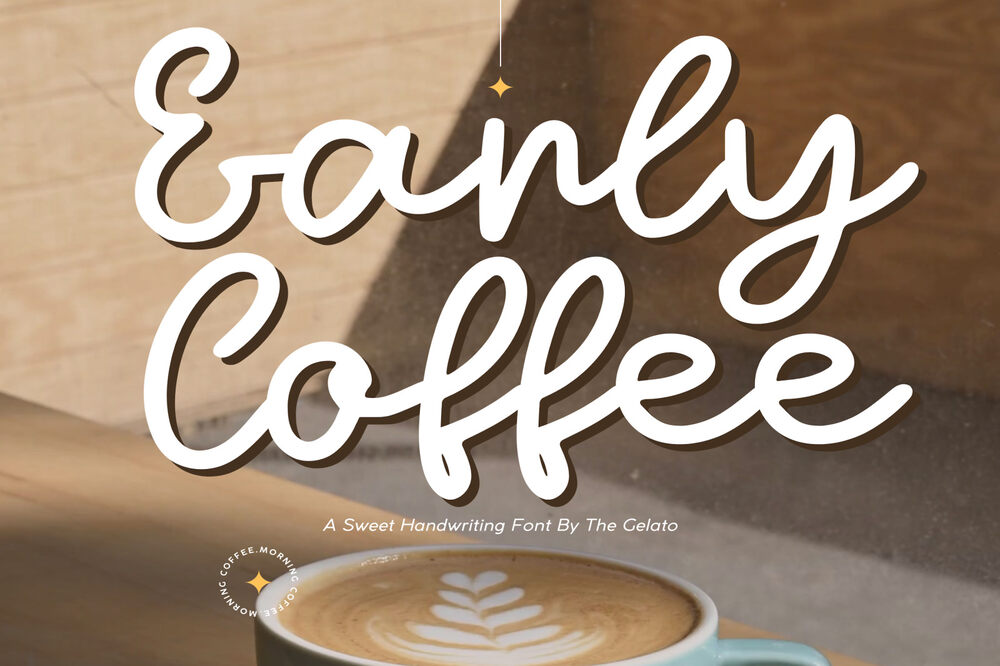
It is a monoline handwritten font that can be used as a calligraphy embroidery font, coffee shop font, cafe menu sign font and etc.
Coffee Beans – Font / Lettering
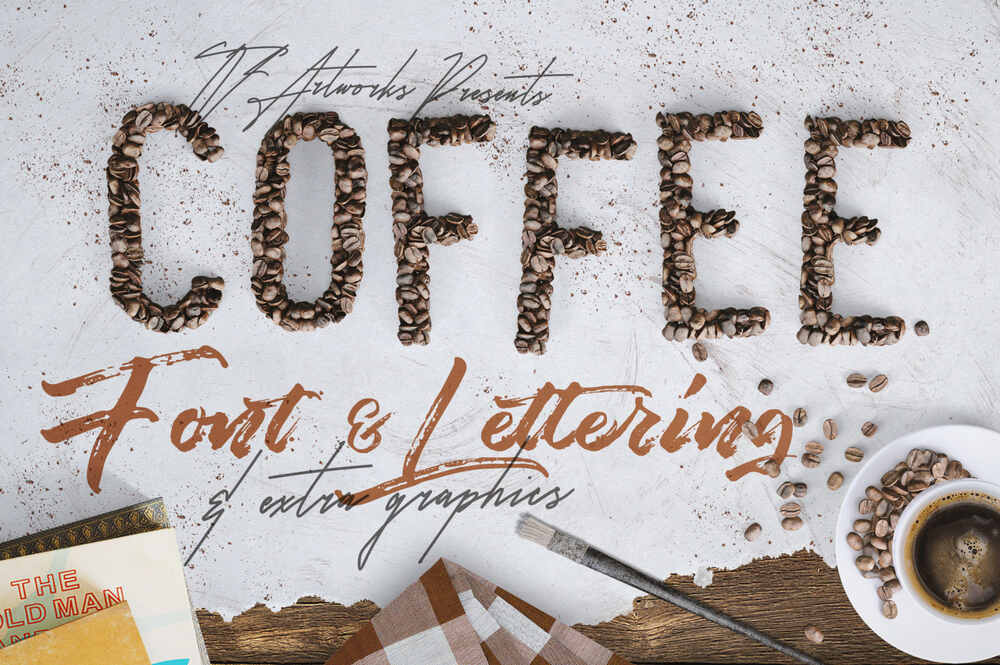
If you are looking for some realistic coffee beans style lettering & graphic ellements then you are at the right place. This designs are best for coffee shops, menu designs, posters and etc.
Brewlogic – Organic Display Font
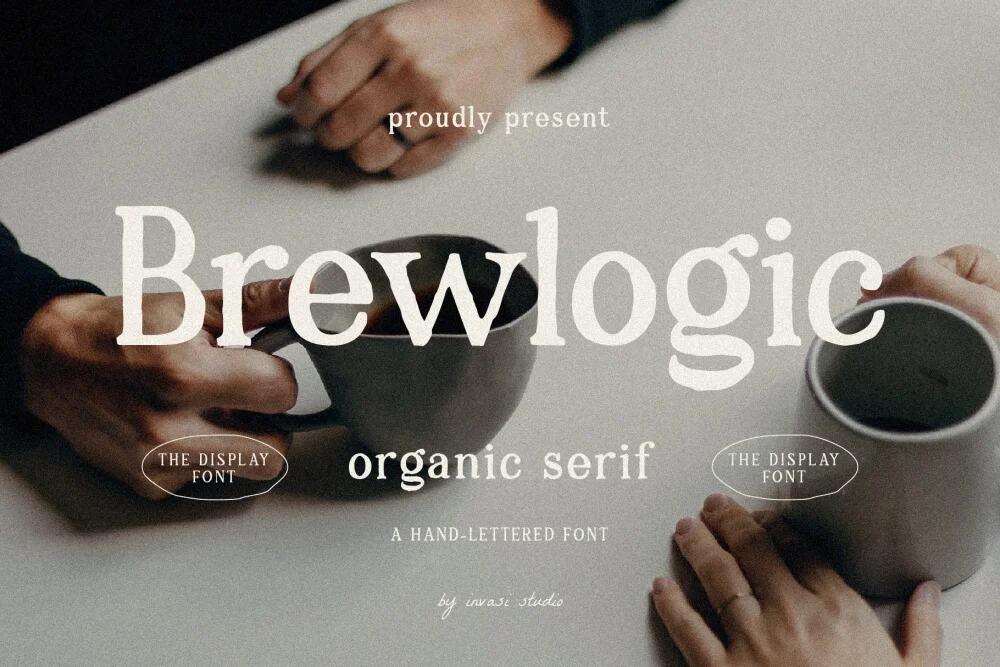
It is a hand-lettered serif font that complements the fresh new look. The best way to show your great taste is by displaying it on tags and packaging.
The Cafe Americana / Font Family
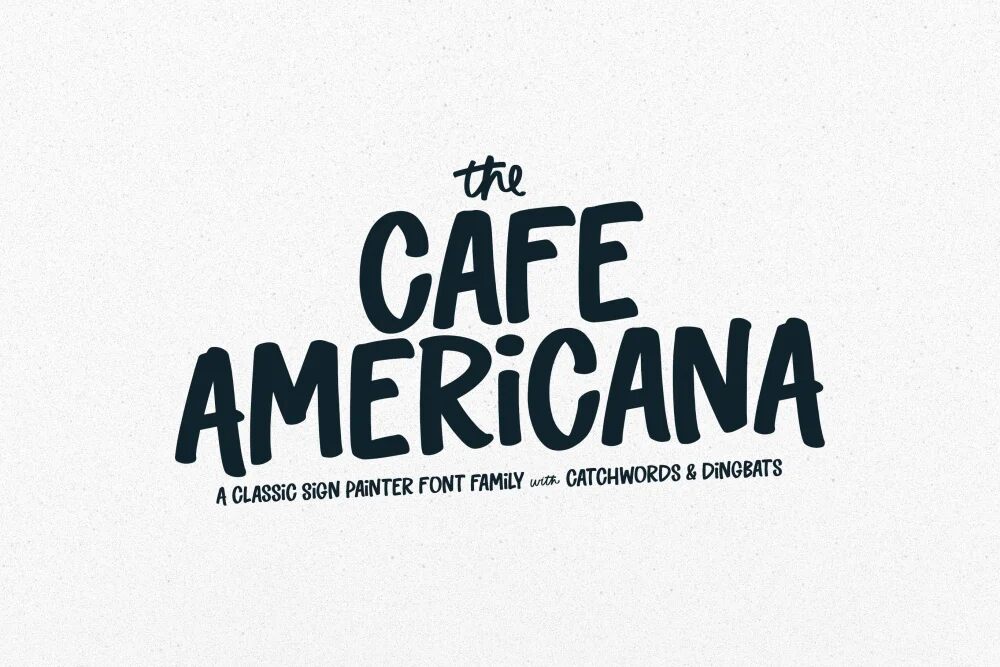
A classic sign painter font in 3 varieties, including a fun set of catchwords and dingbats. Perfect for signage, labels, posters, mugs, invites, greeting cards and etc.
Coffee Healing Font
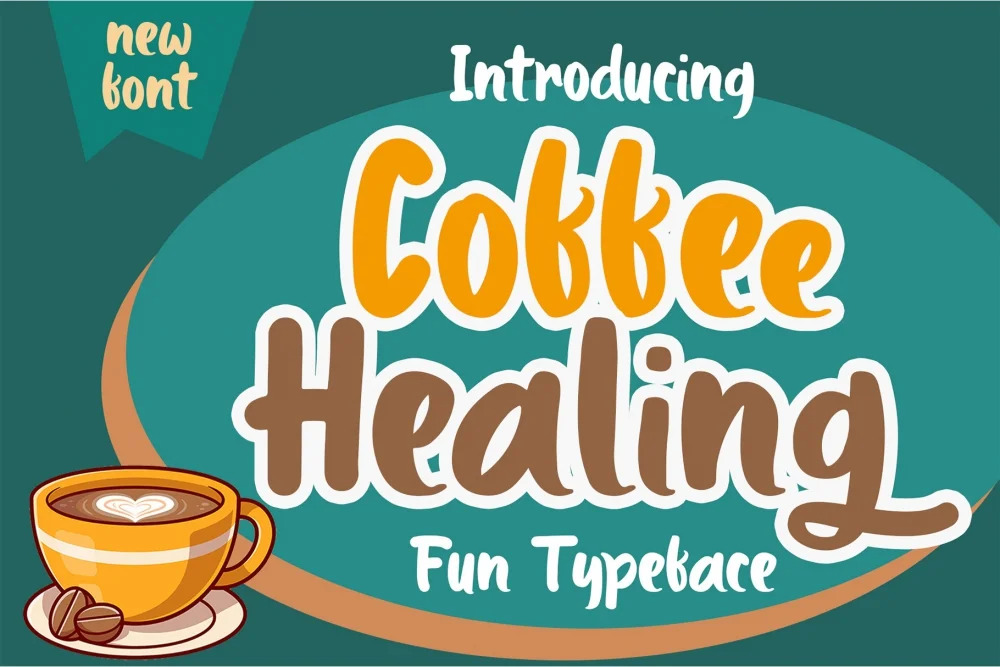
It is a cute and joyful display font. It embodies playfulness and authenticity and is the perfect choice for any children activity or school project.
Coffee Tables – Script Font
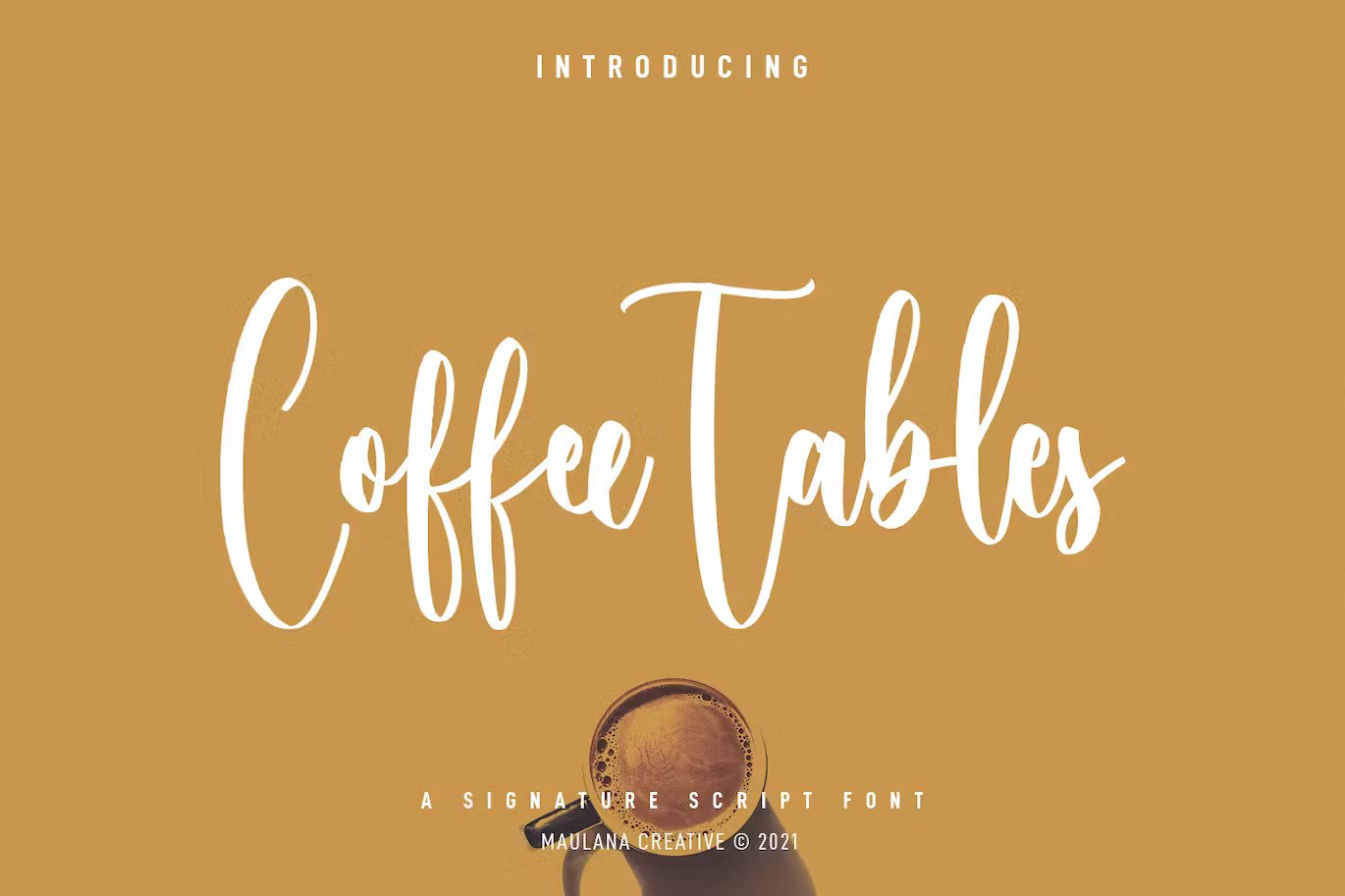
It is a signature script font. With regular contrast stroke, fun character with a bit of ligatures. To give you an extra creative work.
Coffee Extra Font
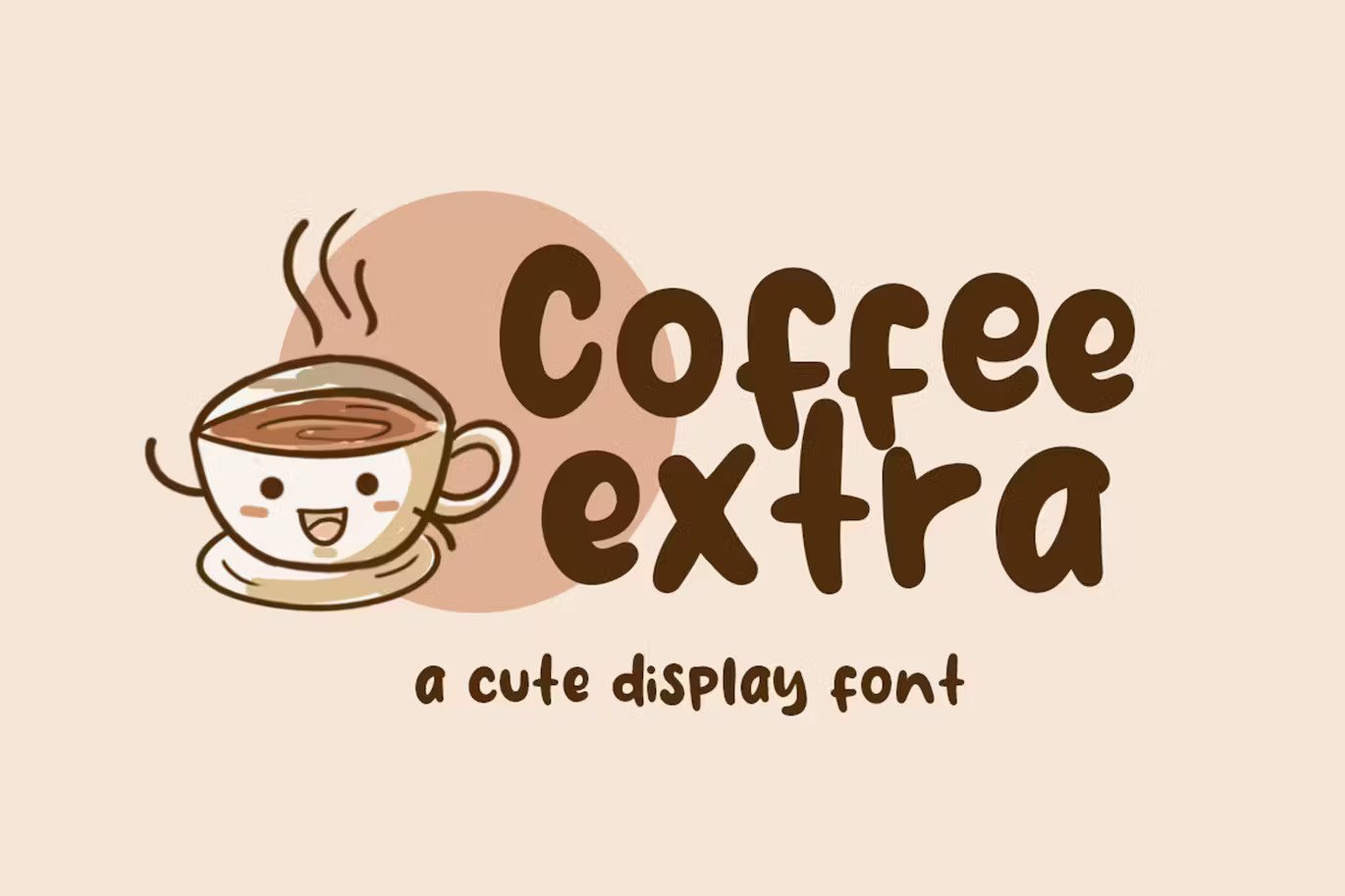
A fun display typeface with cheerful theme for your fun project. Coffee Extra font suitable for logos, branding, greeting cards, posters and any designs that you create.
Fresh and Roast Font
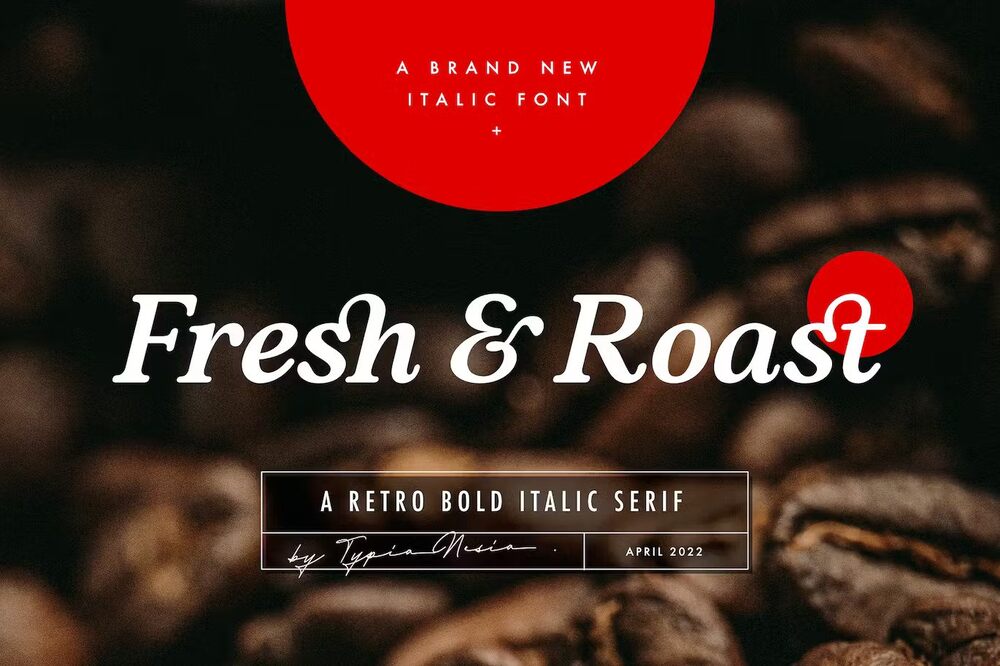
A stylish cafe font for all your creative designs such as logos and brand, coffee cafe branding, modern advertising designs and etc.
Lazy Coffee Font
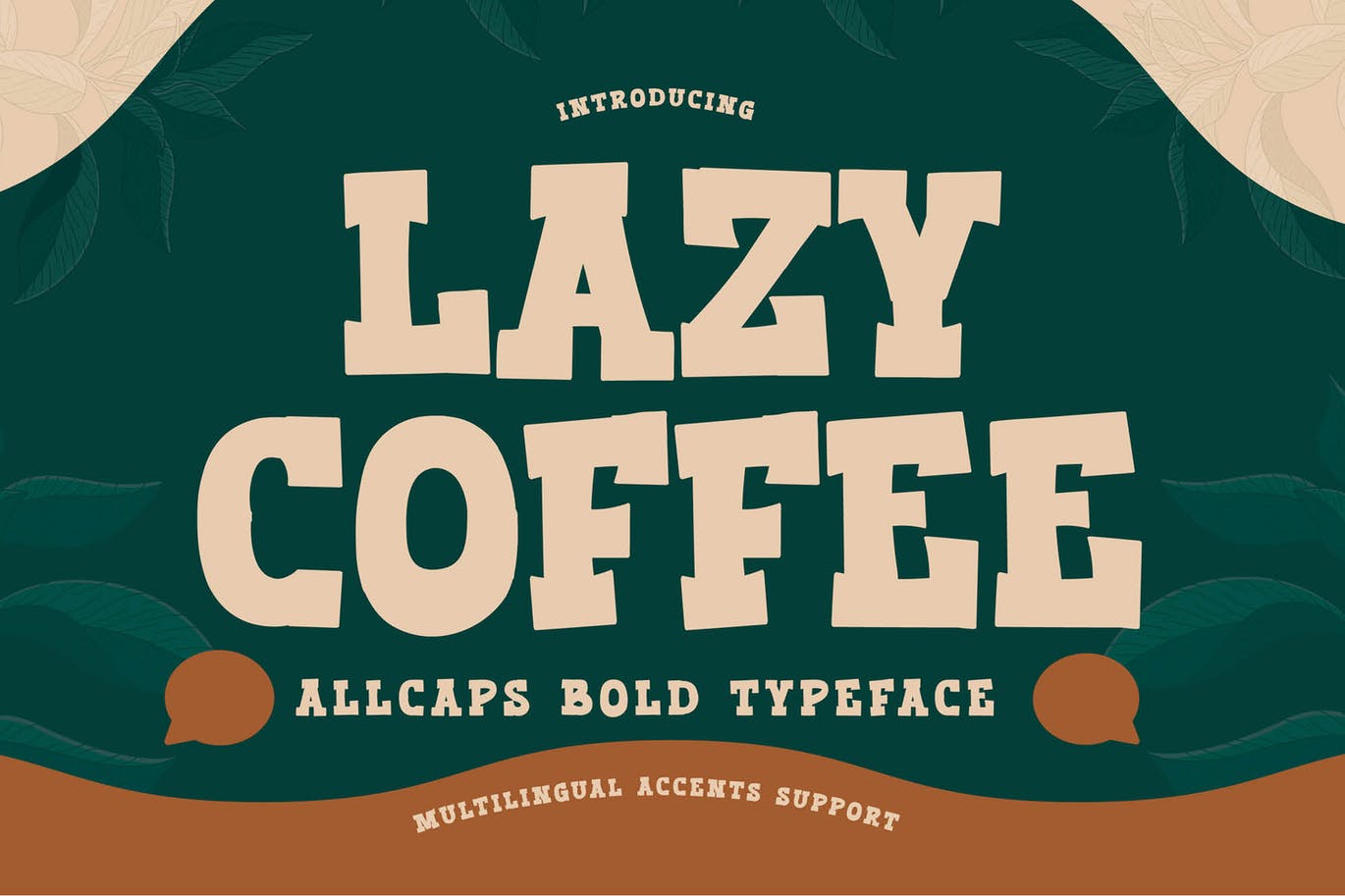
An all caps bold typeface serif display font, inspired by the title of the sports poster. Suitable for the titles, typography, posters, magazines, brochures, packaging and etc.
The Brewski – Textured Typeface
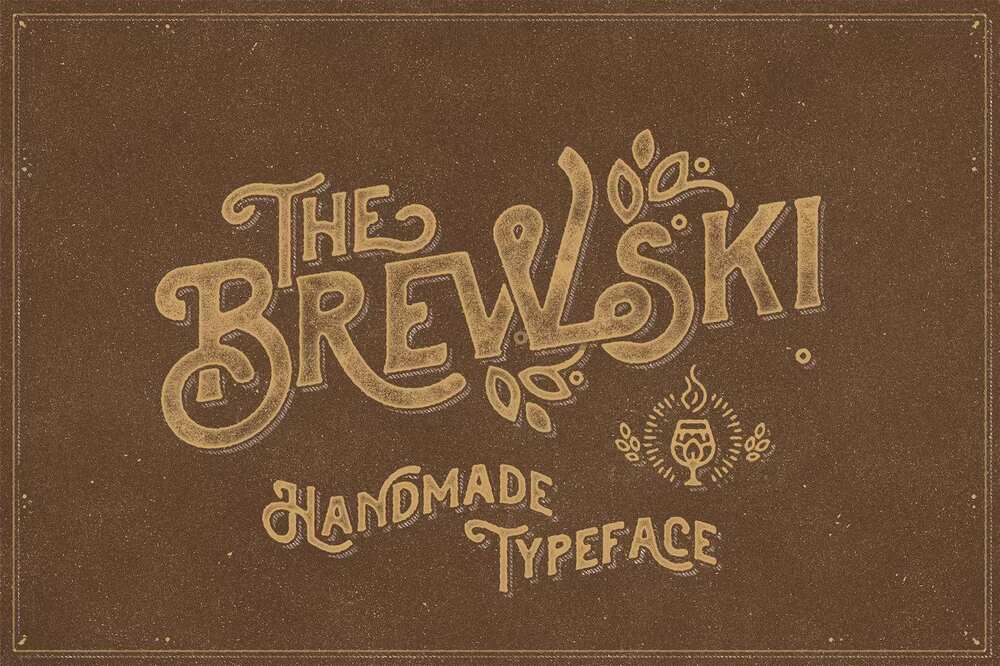
It is aTextured typeface, with touch of many beautiful alternates character and ornament makes this font look stylist. So good for designs such as t-shirts, logos, labels, posters and etc.
Daily Coffee Signature Font
The unique flow and easy handwritten style makes ithis font perfect for wedding designs, social media, feminine branding, greting cards, modern invitation designs, stationery designs and etc.
Free Coffee Font
A lovely brushed handwritten font. It has a casual and trendy touch, which will make each of your creations both adaptable and unique. Free for personal use only.
Free Love Coffee Font
A funcly and playful display font so good going for your designs such as posters, logos, magazines, coffee shops. This font is free for personal and commercial use.
Free Take Coffee Font
A handlettered coffee style font so good going for your designs such as mugs, posters, book covers, t-shirts. This font is free for personal and commercial use.
Free Milky Coffee Font
A funny and hand lettered font for your persect designs such as mugs, covers, posters, flyers, packaging. This font is free for personal and commercial use.
Free Coffee and Crafts Font
It is a charming and whimsical typeface that is perfect for a variety of usages. It would look amazing in shop logos and banners, videos, greeting cards. This font is free for personal use only.
Toast Bread Coffee Typeface
It is complete package Font for your design or your job, have 3 differnt font style (sans, serif, and script). Can make it easier to convey the message in your design.
Sunday Coffee – Round Outline Typeface
It is a classic rounded outlined typeface that was inspired by the letters used in old advertisements and packaging. Suits best for logos, liquor/food labels, packaging, headlines, space-fillers and etc.
Cordoba – Font Duo
It is an organic font duo with natural vibes! Contain two fonts, sans and serif with rough and stamp style. You can use this font for every project.
Sugarless Coffee – Bold Brushing Font
A bold brushing font, inspired by the title of the sports poster. Ideal for designs such as quotes, sporty theme, logotypes, wordmarks and etc.
The Brewfine – Feminine Serif Font